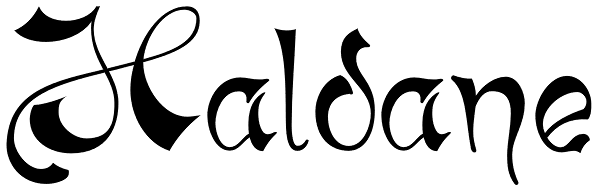
Haldane
Haldane is an Art Nouveau 'punctuated' (i.e. not joined) script, ideal for certificates, calligraphic lettering and signage. Stroke width vary from almost hairline to extremely wide. Great fun for every application!